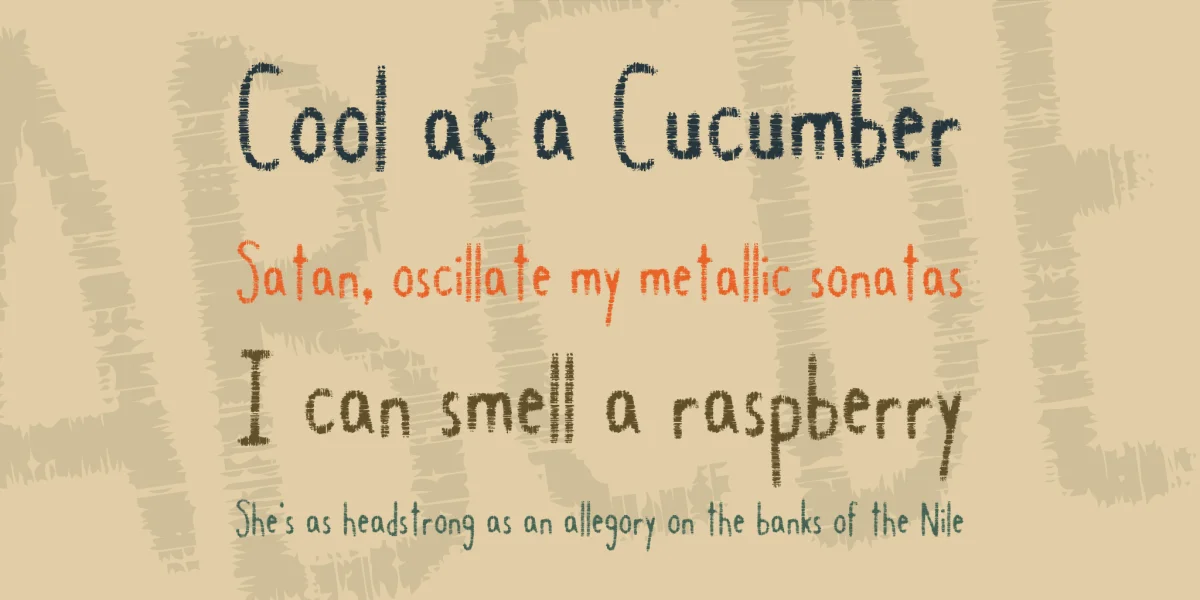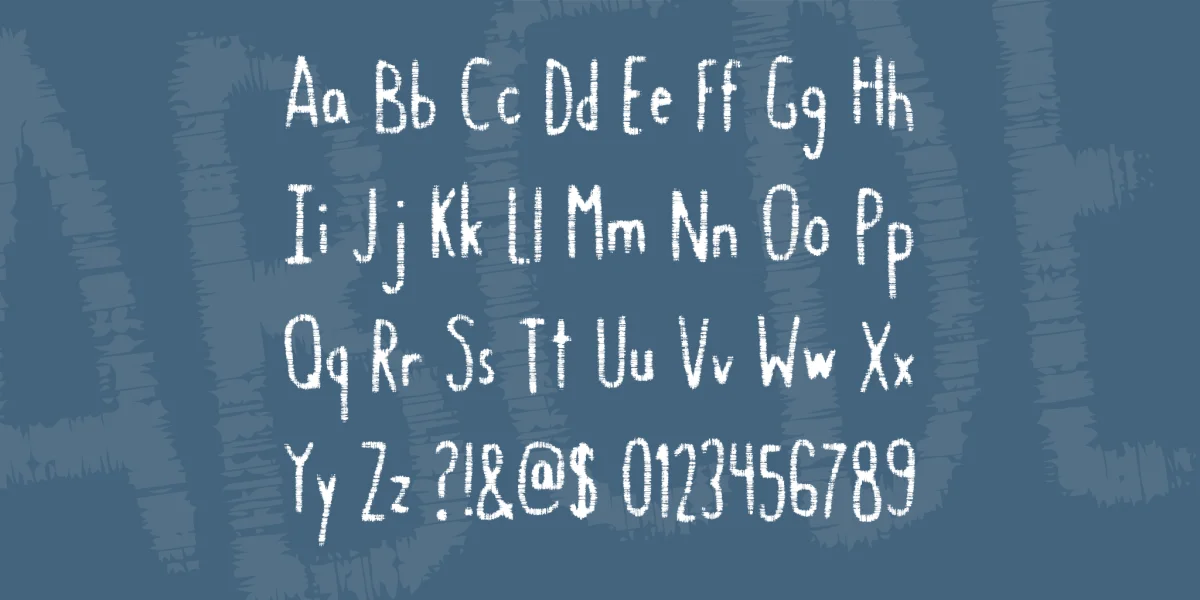
Gastro Intestinal is a tall, worn-down looking font. For a more "together" version, check out Gastro Intestinal Confluent.
This font may be a little small... you may need to go 10 points higher than usual.